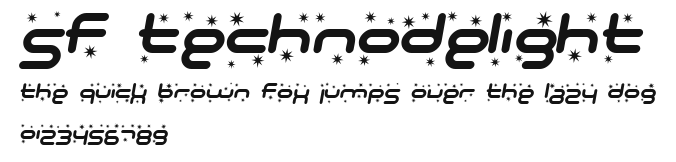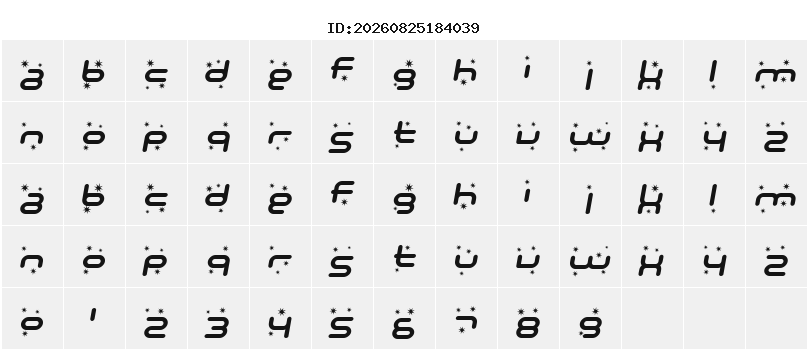
• Font Name: SF Technodelight
• Font ID: SF Technodelight Bold Italic
• Full Font Name: SF Technodelight Bold Italic
• PostScript Name: SFTechnodelightBoldItalic
About SF Technodelight.ttf
SF Technodelight.ttf is a modern, elegant sans-serif font designed for ultimate readability and visual harmony. Perfect for branding, headlines, web design, and print materials.